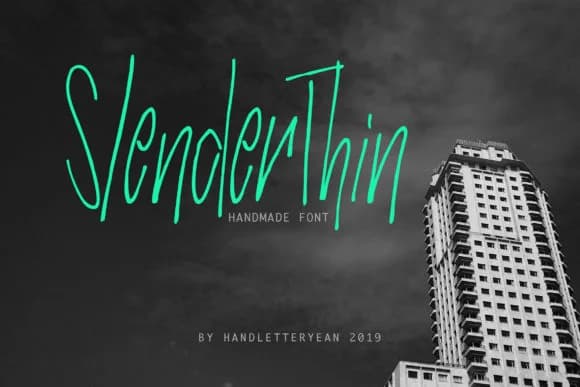
Slender Thin, designed by yean.aguste, is a script typeface defined by its refined, minimal stroke weight. The letterforms dance across the page with an almost calligraphic lightness, suggesting sophistication without the visual heaviness that overwrought scripts often carry. What makes this font distinctive is how the thin lines manage to convey both elegance and deliberate restraint in equal measure, making it feel intentional rather than merely delicate.
This typeface shines in applications where restraint matters most. Wedding invitation suites benefit from its subtle grace, which sets an intimate, refined tone without demanding attention. Fine art print captions, vintage-inspired hand lettering projects, luxury brand identities, and minimalist packaging labels all gain from the font's thin proportions and the visual breathing room they create. Gallery announcements and sophisticated social media graphics for boutique brands or high-end services work particularly well, as the lightweight strokes convey quality through subtlety rather than volume. Multiple weights including Bold and Italic variants let you add emphasis or contrast within the same typeface family when your layout calls for it.
Slender Thin Font is a script font that shines as a display or heading face. Pair it with a clean sans-serif or serif font for body text β the contrast creates a clear hierarchy while the two styles stay balanced and easy to read.